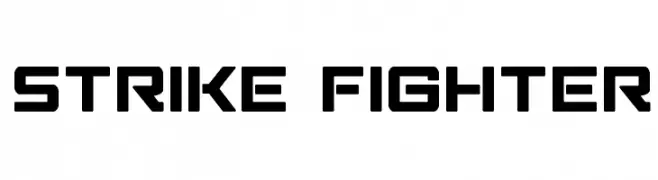
A bold, cursive script font with high contrast and flowing, connected characters.
A bold, distressed font with a vintage, textured appearance.
A bold, italicized font with a futuristic and dynamic design.
A classic serif font with a modern touch, featuring elegant curves and balanced proportions.
A futuristic, angular font with a bold and geometric design.
A whimsical serif font with tall, narrow letterforms and playful serifs.
A bold, fluid script font with elegant, connected strokes and high contrast.
A bold, distressed font with a rugged, vintage cinema style.